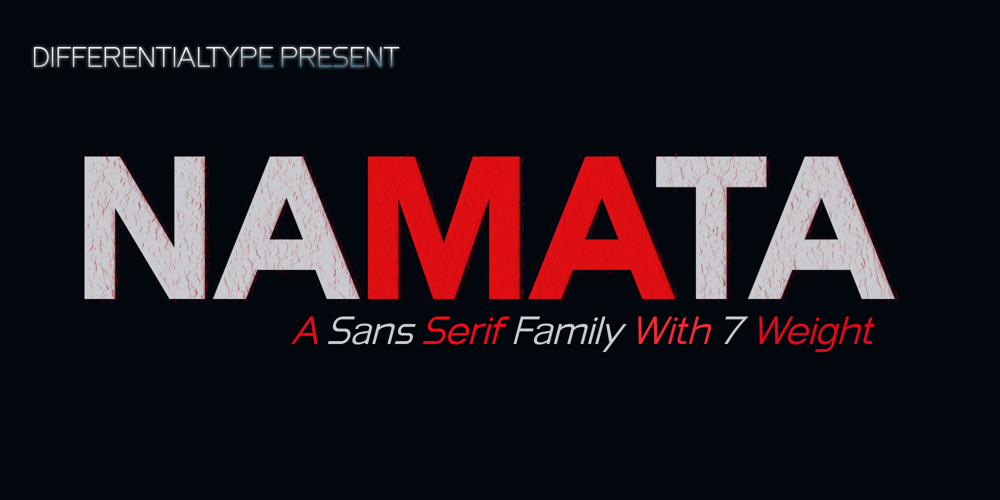
Namata
Namata font
Namata Font Family was designed by Sidik Sidik and published by Differentialtype. Namata contains 14 styles and family package options. Namata is a sans serif font with 7 weights and 14 styles. It is suitable for use for your documents, especially at a very affordable price.